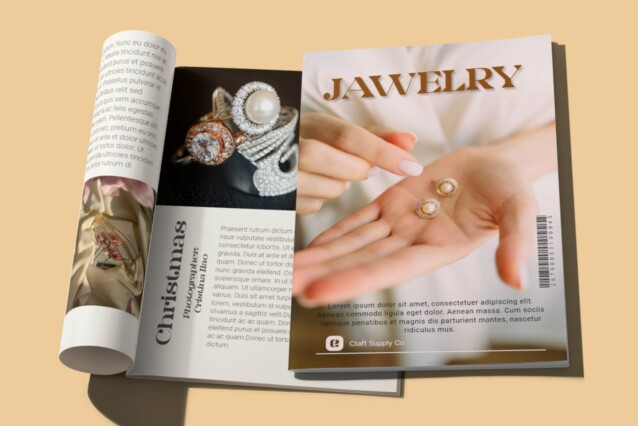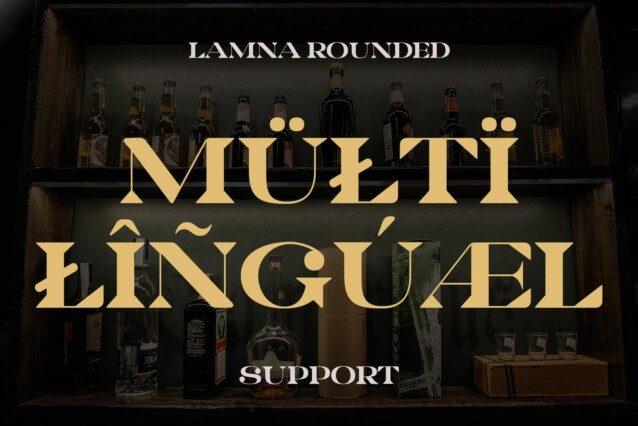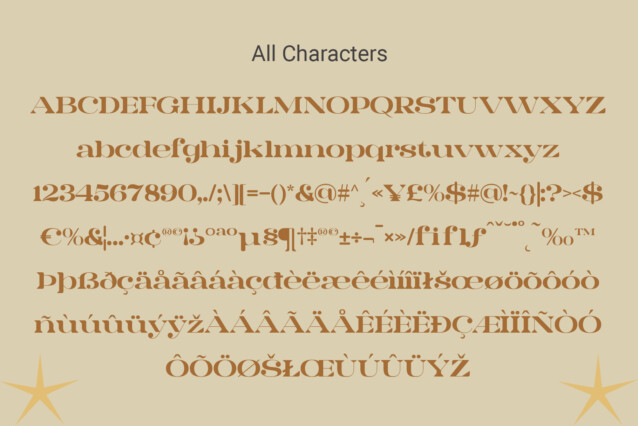
Lamna Rounded Font
Lamna Rounded Font is a high-contrast serif font with a unique touch of elegance. Its bold strokes and delicate serifs create a captivating visual impact.
Friendly Vibes with Rounded Serifs The rounded serifs of This font infuse a sense of friendliness into its elegant design. This combination of sophistication and approachability makes it versatile for various design projects.